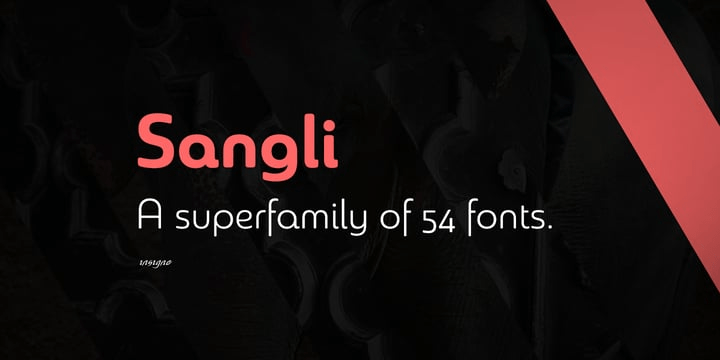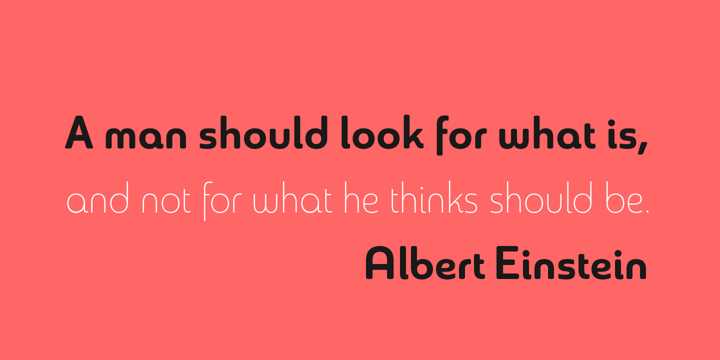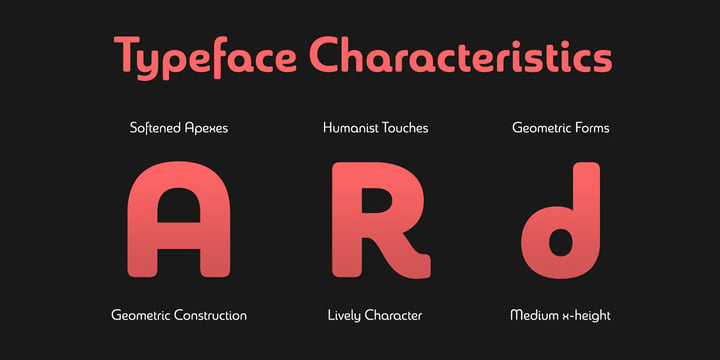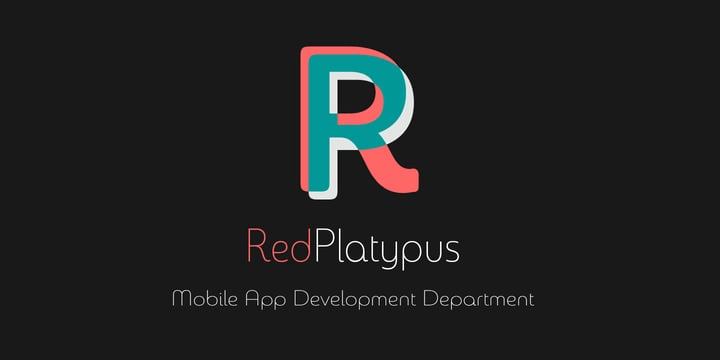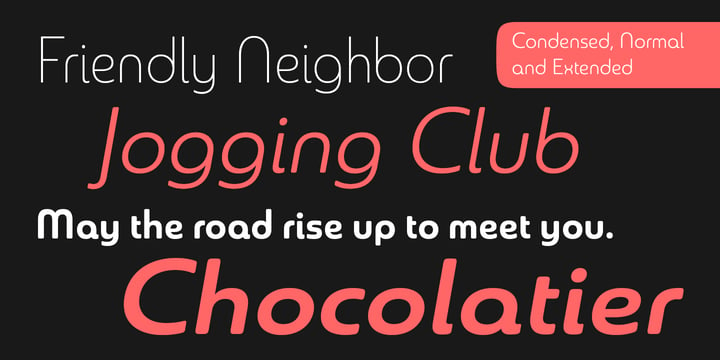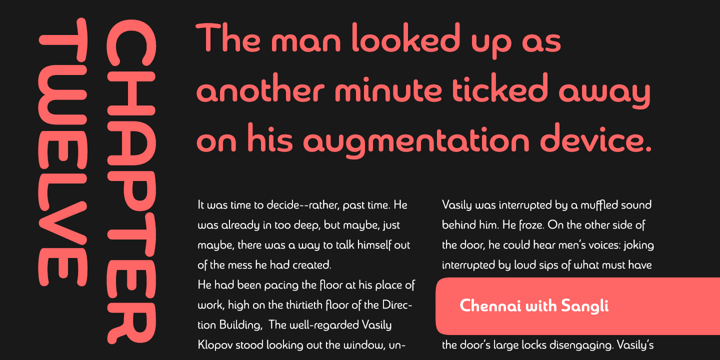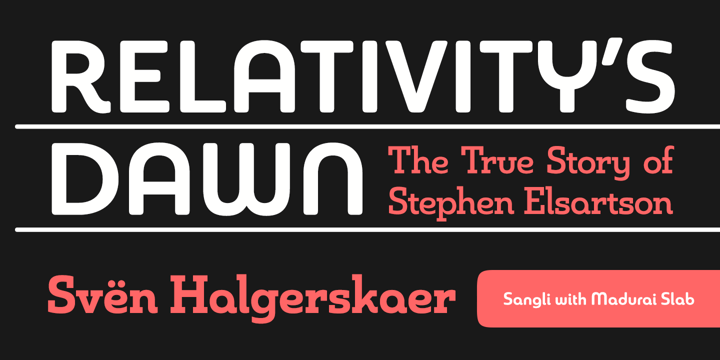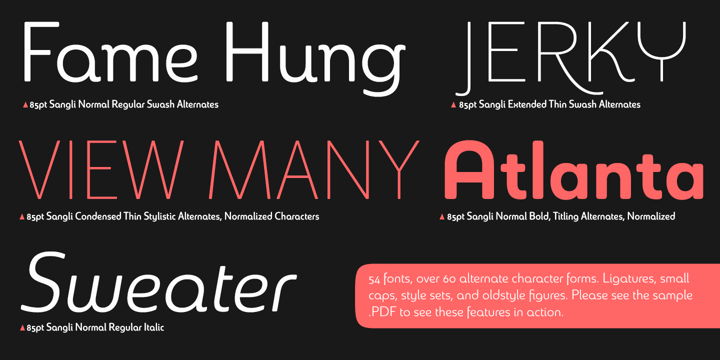
Sangli
Buy NowIt started in 2007 with Chennai, the first of a three-part series of sans that I envisioned with slab serif counterparts. Each font would differ from the others in how the stem terminals were expressed. Then came Madurai, a variation of Chennai based on the same core, only without the rounded stems. Chennai's rounded stems made it distinctive and great for headlines but left it lacking appeal as copy--a problem that Madurai easily solved.
And now comes Sangli, the final iteration of my original 2007 vision. Sangli is a happy medium. Like Chennai, it's great for headlines--but not too distinct for copy. Sangli keeps the same core structure as the other two, but new less sharp forms give this latest font a friendlier look that's more versatile than the original Chennai and less formal than Madurai.
The font includes a whole range of six weights from light to black, along with condensed and extended options as well for a total of 54 fonts. There are plenty of OpenType features, including small caps. Alternates include normalized capitals and lowercase letters that include stems for when you want a more traditional look or when you're writing copy. Sangli also supports over 70 languages that use the extended Latin script.
Use Chennai, Madurai, and their slab serif variants interchangeably with Sangli, too, for even more options in your work. All three complement one another well. So when you need a balanced font that stands boldly on the page and commands your reader's attention, look within and find your Sangli.